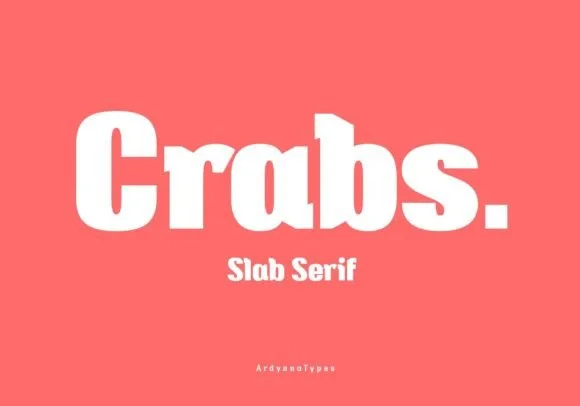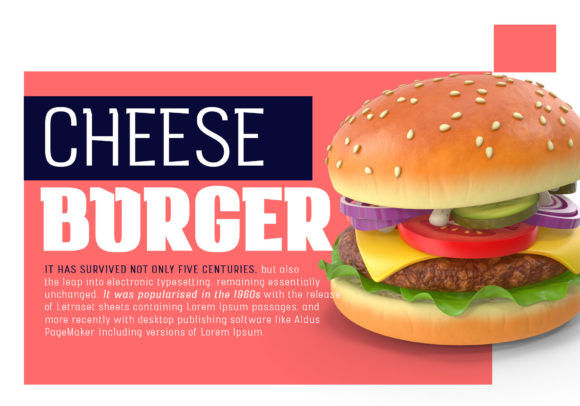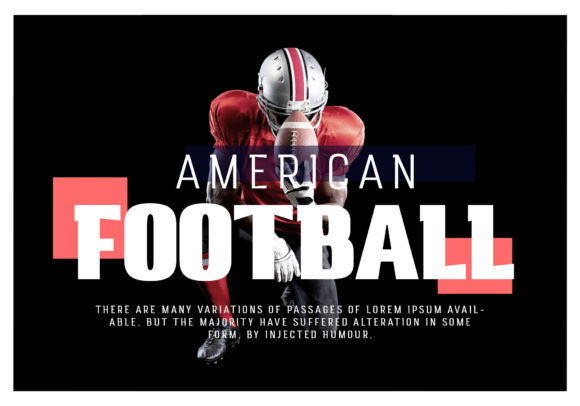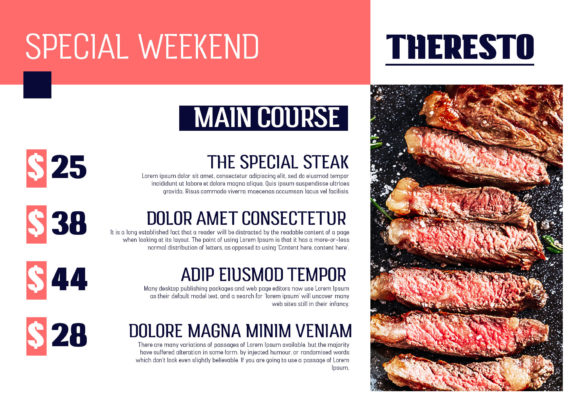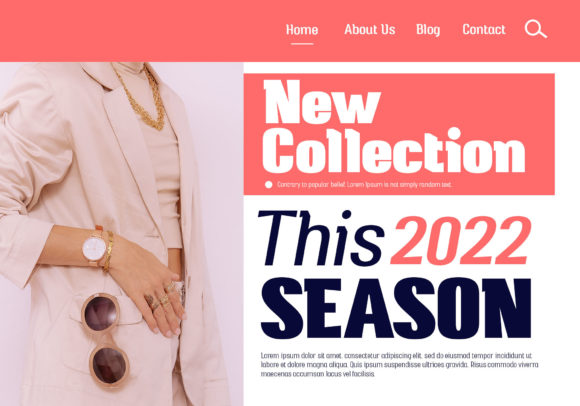
CRABS FONT SPECIMEN
“Crabs” comes in a slab serif style typical of sturdy and elegant typography, which gives a modern, retro, and classic style but has a unique and elegant feel that gives an extraordinary impression. Crabs Slab also comes with multiple languages enabling it to be used in all your projects. Crabs Slab is suitable for use in various purposes or projects, including sports, posters, products, logos, branding, and more.